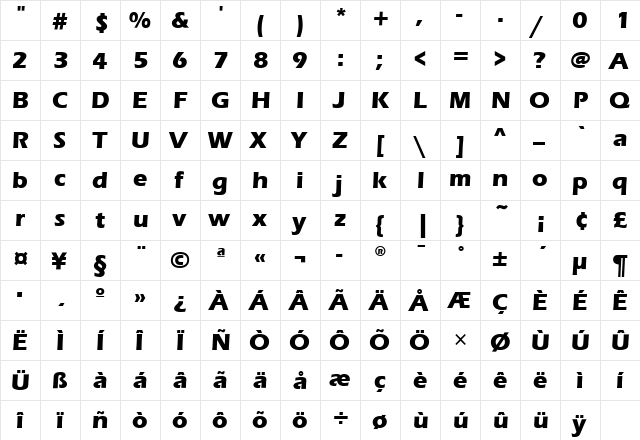
ErasBldITC Medium
Design Context for ErasBldITC Typeface
ErasBldITC is a composed and adaptable typeface that performs quietly and consistently across a wide range of design contexts.